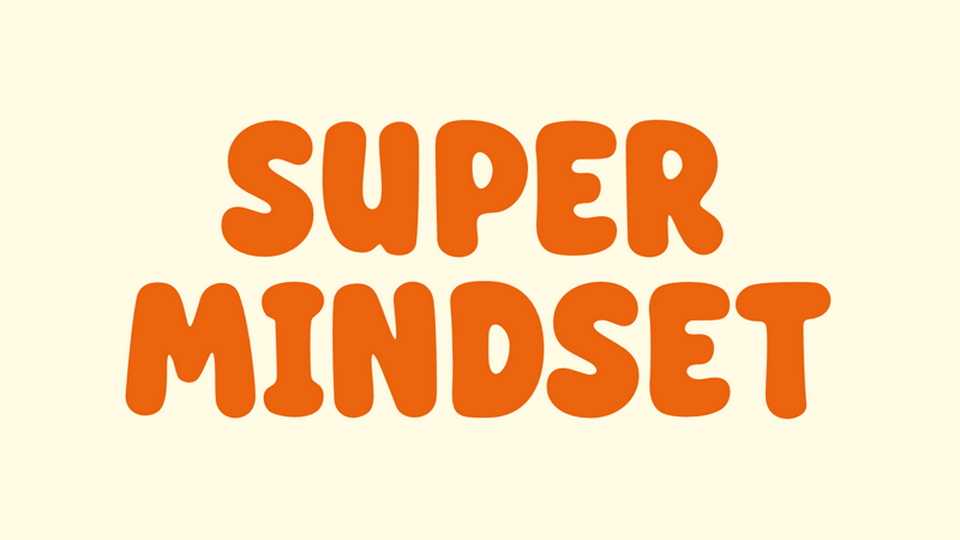
Download Super Mindset font, a bold, rounded display typeface designed with a clean and confident aesthetic. Its smooth curves and balanced proportions create a friendly yet impactful look